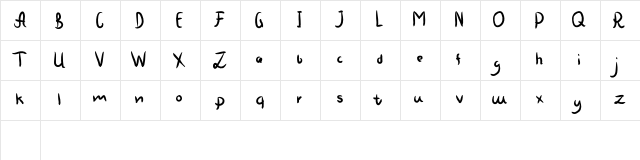
Emotionale Regular
Design Context for Emotionale Typeface
Emotionale is a composed and adaptable typeface that performs quietly and consistently across a wide range of design contexts.
Pro Tip: Use Emotionale in both headline and body roles to test its range before committing to a single application.